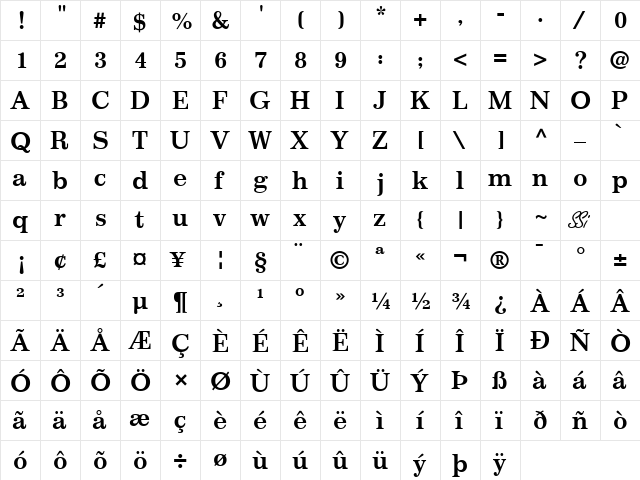
Classic SSi Bold Font Preview
Classic SSi Bold
Classic SSi Bold Font Details
Design Context for Classic SSi Typeface
Classic SSi has the warm character of retro typography — evoking diners, record sleeves, and the golden age of print advertising. The heavy weight commands attention and anchors typographic hierarchies.
Perfect for vintage-inspired branding, retro packaging, nostalgia campaigns, and period-accurate editorial design.
Font Pairing: Combine Classic SSi with a simple slab or neutral sans — period-accurate companions reinforce the vintage feel without competing for attention.
Pro Tip: Use Classic SSi for headlines and pull quotes rather than body copy — its personality is best appreciated in short, focused bursts.